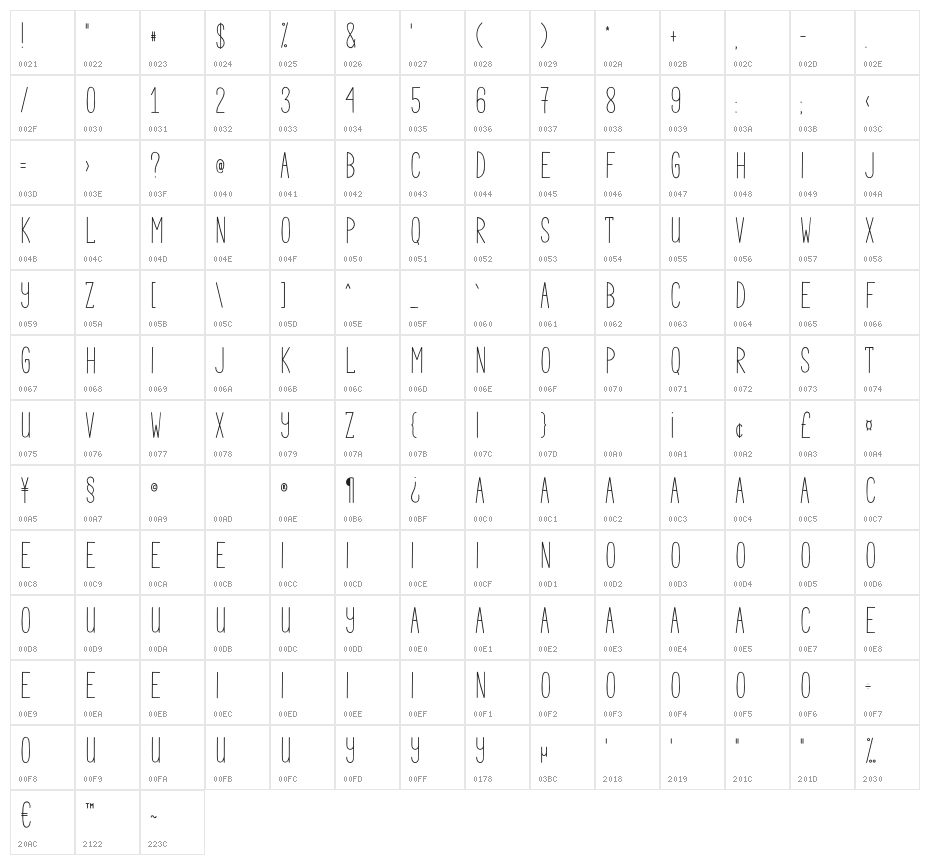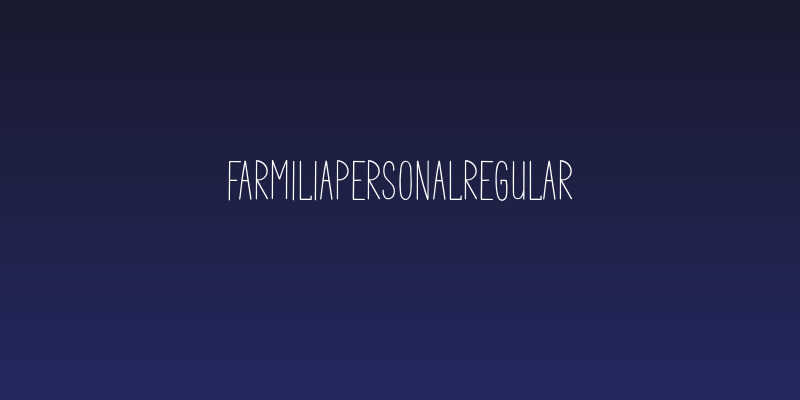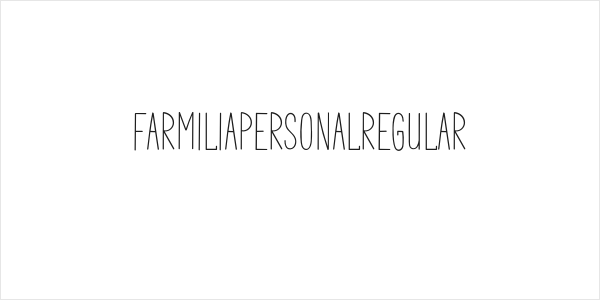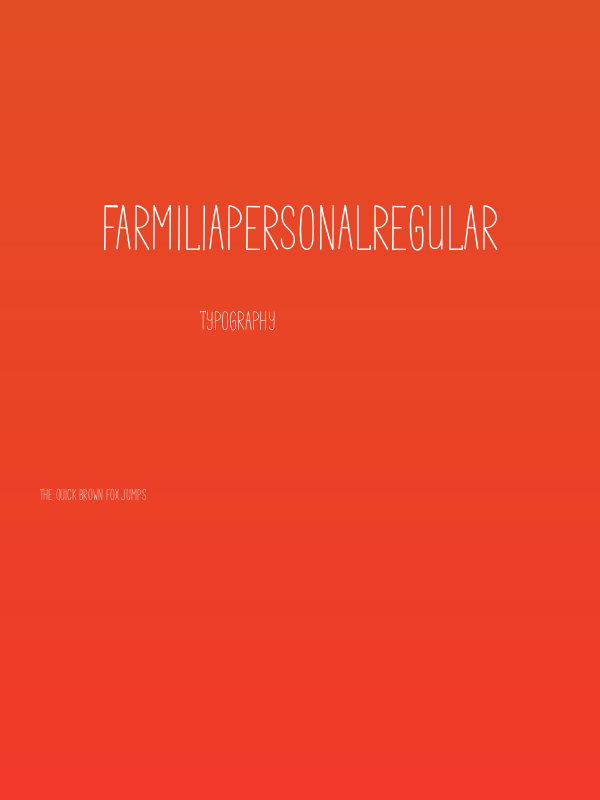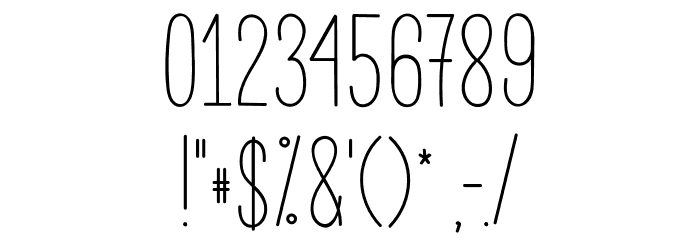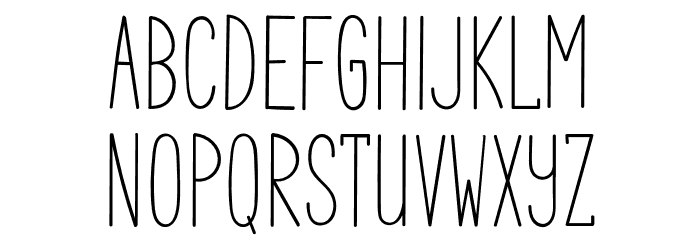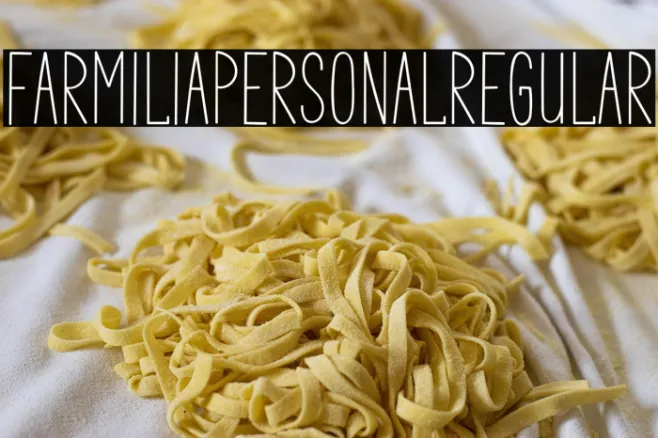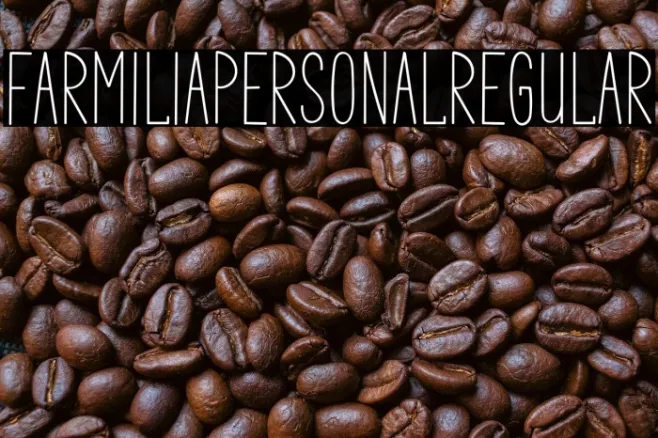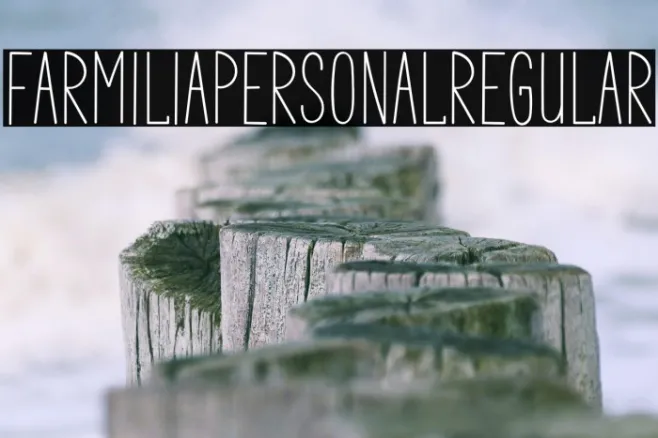
FarmiliaPERSONAlRegular Font
FarmiliaPERSONAlRegular Description
This font features a tall and narrow design with clean, straight lines and minimal embellishments. The characters are evenly spaced, creating a harmonious and readable appearance. The uppercase and lowercase letters maintain a consistent height, contributing to a uniform look. The numerals and special characters are designed to match the overall aesthetic, with a focus on simplicity and clarity. This font's modern and sleek style makes it suitable for a variety of design projects.
| Proposed Projects | Ideal for branding, editorial design, posters, and digital media where a modern and clean look is desired. |